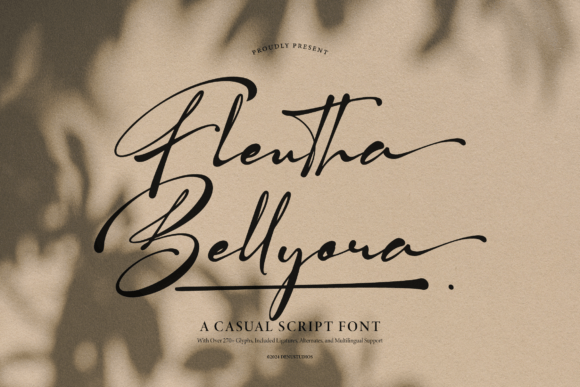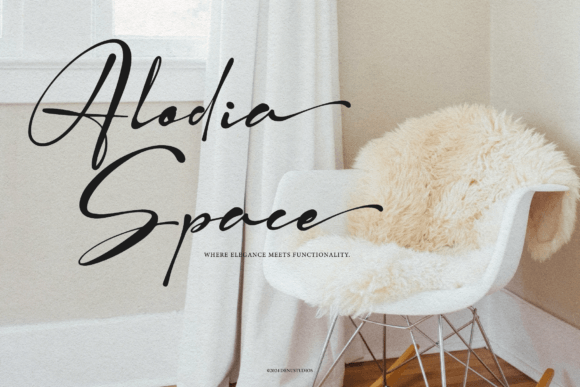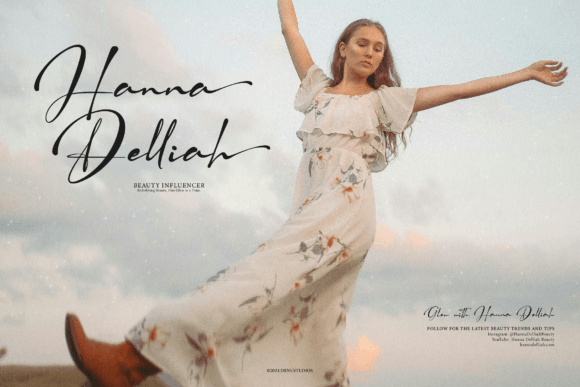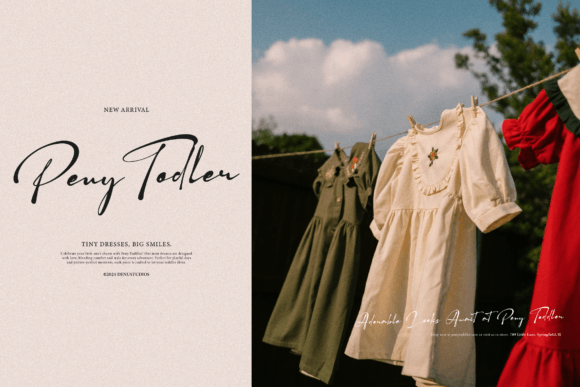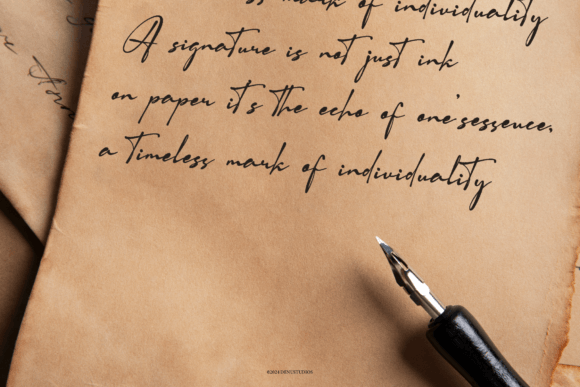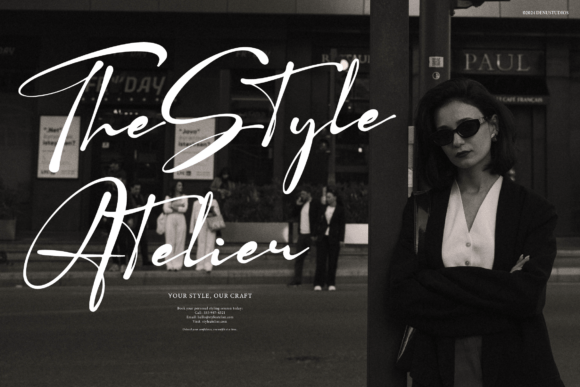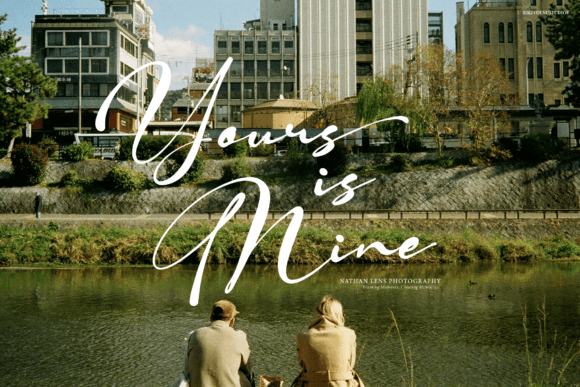
The Perfect Script Font for Your Next Creative Project
Remember that moment when you’re brainstorming ideas for your latest design project, and you just can’t seem to find the right font to bring it all together? You’ve scoured the internet, tried out countless options, and yet, nothing seems quite right. That’s where Flentha Bellyora Font comes in – a beautiful, casual script font designed to add a touch of elegance and sophistication to any project.
Whether you’re working on logos, branding projects, or homeware designs, Flentha Bellyora Font is the perfect choice. Its versatility and charm make it an invaluable asset for designers, allowing them to create unique and eye-catching designs that stand out from the crowd. With its wide range of applications, from product packaging to greeting cards, Flentha Bellyora Font is an essential tool for any designer looking to add a personal touch to their work.
- Font Family: Flentha Bellyora is a unique, hand-drawn font family that includes multiple styles and weights.
- Unique Characteristics: Flentha Bellyora features a distinctive, hand-drawn aesthetic with intricate details and flourishes, making it ideal for creative projects and designs that require a touch of elegance and sophistication.
Designer Review: Flentha Bellyora Font
I recently had the chance to work with the Flentha Bellyora font, and overall, I was pleasantly surprised. Here are my thoughts on what works well and what doesn’t.
- Unique Character: The font has a distinct, hand-drawn feel that’s perfect for adding a touch of personality to your designs.
- Wide Character Set: The font includes a wide range of characters, including numerals, punctuation, and special characters.
- Flexibility: Flentha Bellyora works well in both digital and print formats, making it a versatile choice for designers.
- Legibility at Small Sizes: While the font is beautiful at larger sizes, it can become difficult to read at smaller sizes, especially in digital formats.
- Lack of Bold Weight: The font is missing a bold weight, which can limit its use in certain design applications.
- Not Suitable for Body Text: Due to its decorative nature, Flentha Bellyora is best used as a heading or title font, rather than body text.
Overall, I think Flentha Bellyora is a great addition to any designer’s toolkit. While it may have some limitations, its unique character and flexibility make it a valuable asset for creating eye-catching designs.
The Flentha Bellyora Font is ideal for:
- Creating elegant and sophisticated designs.
- Adding a touch of sophistication to invitations, menus, and other print materials.
- Designing logos, branding materials, and other visual identity elements.